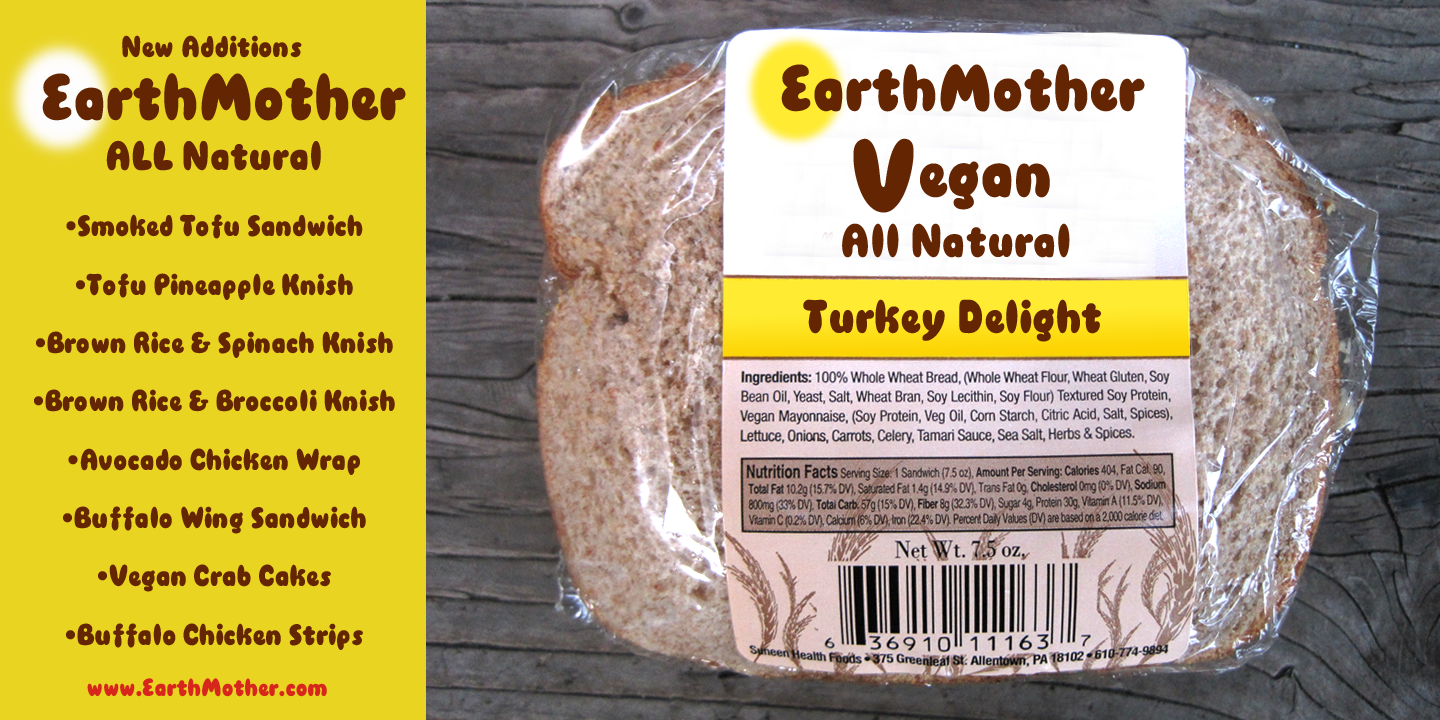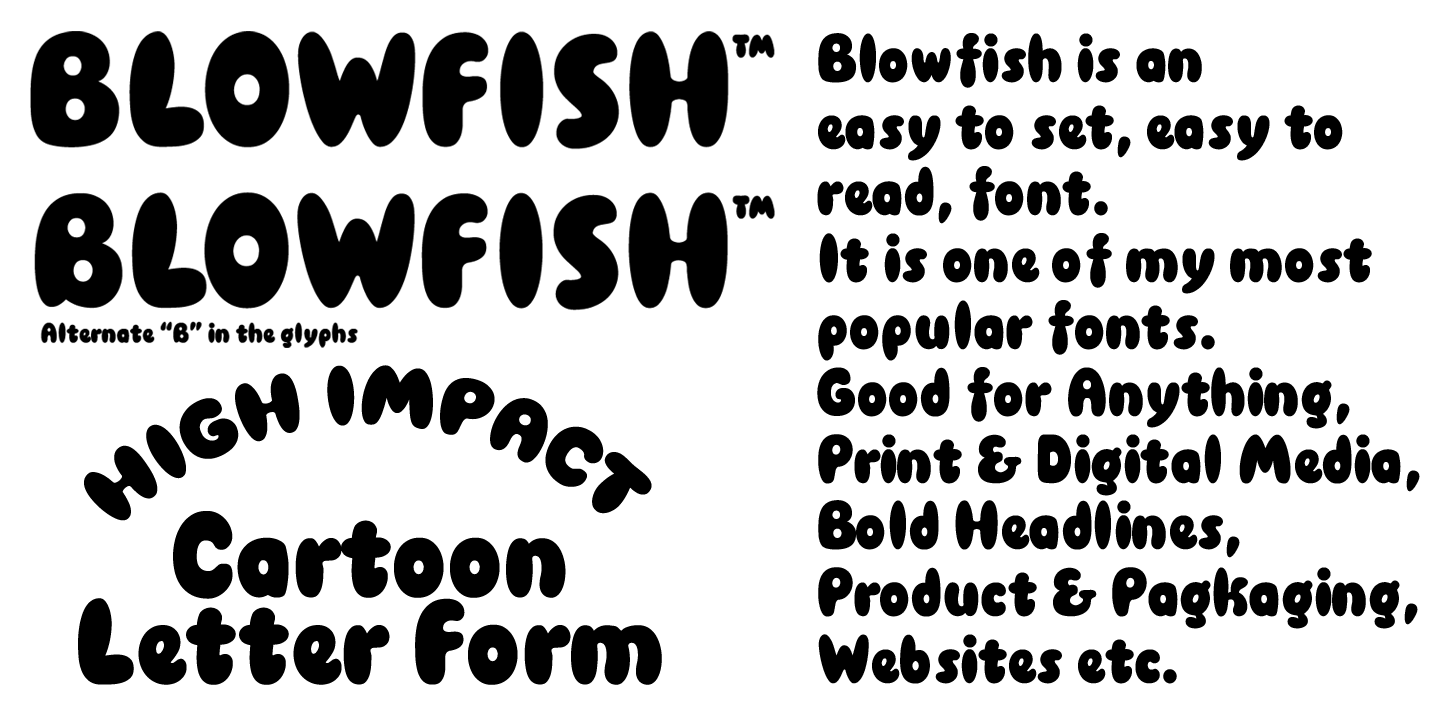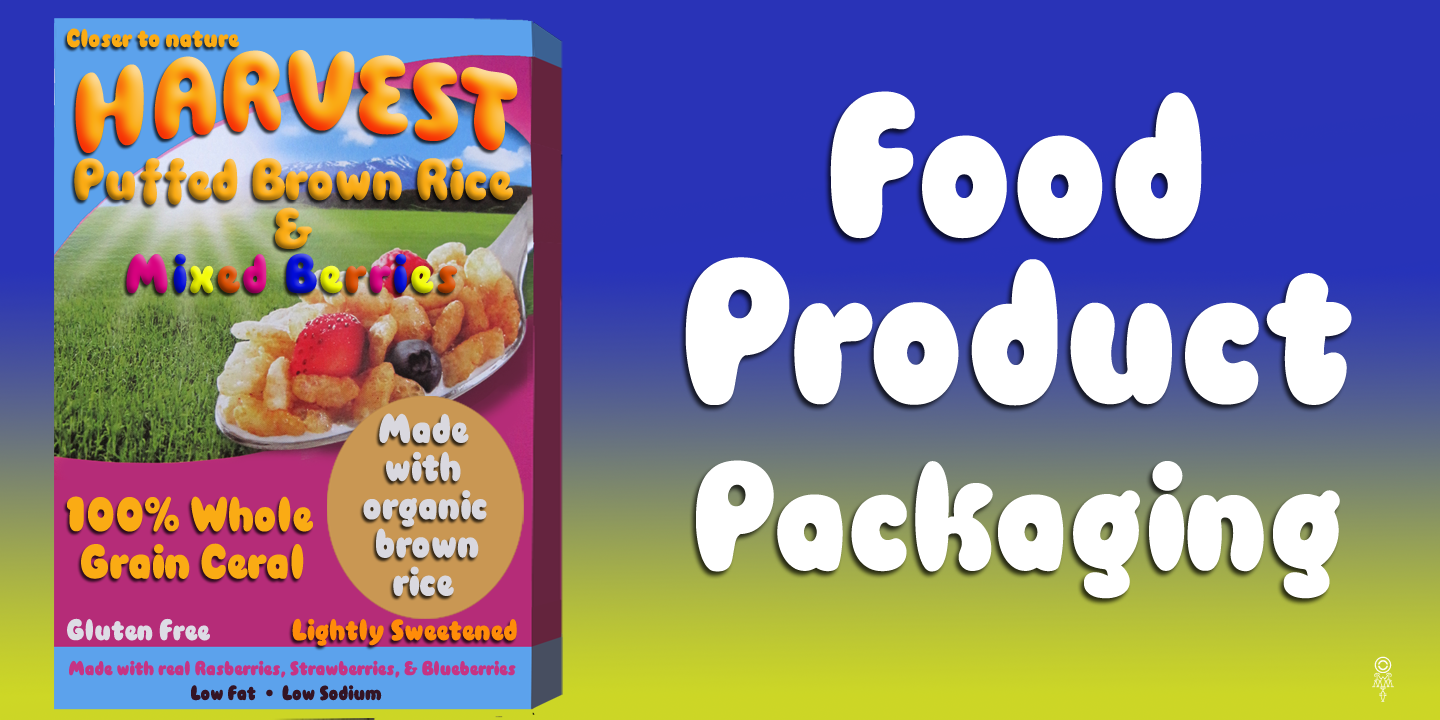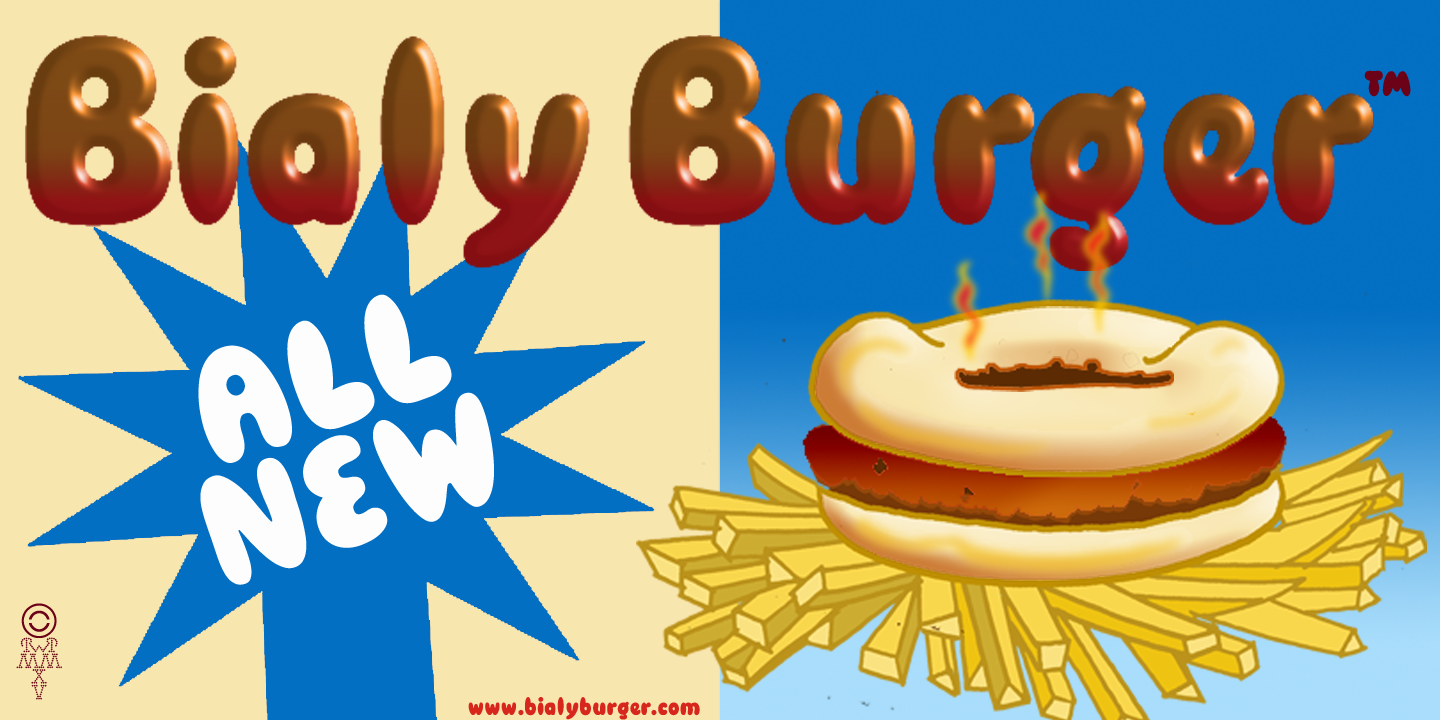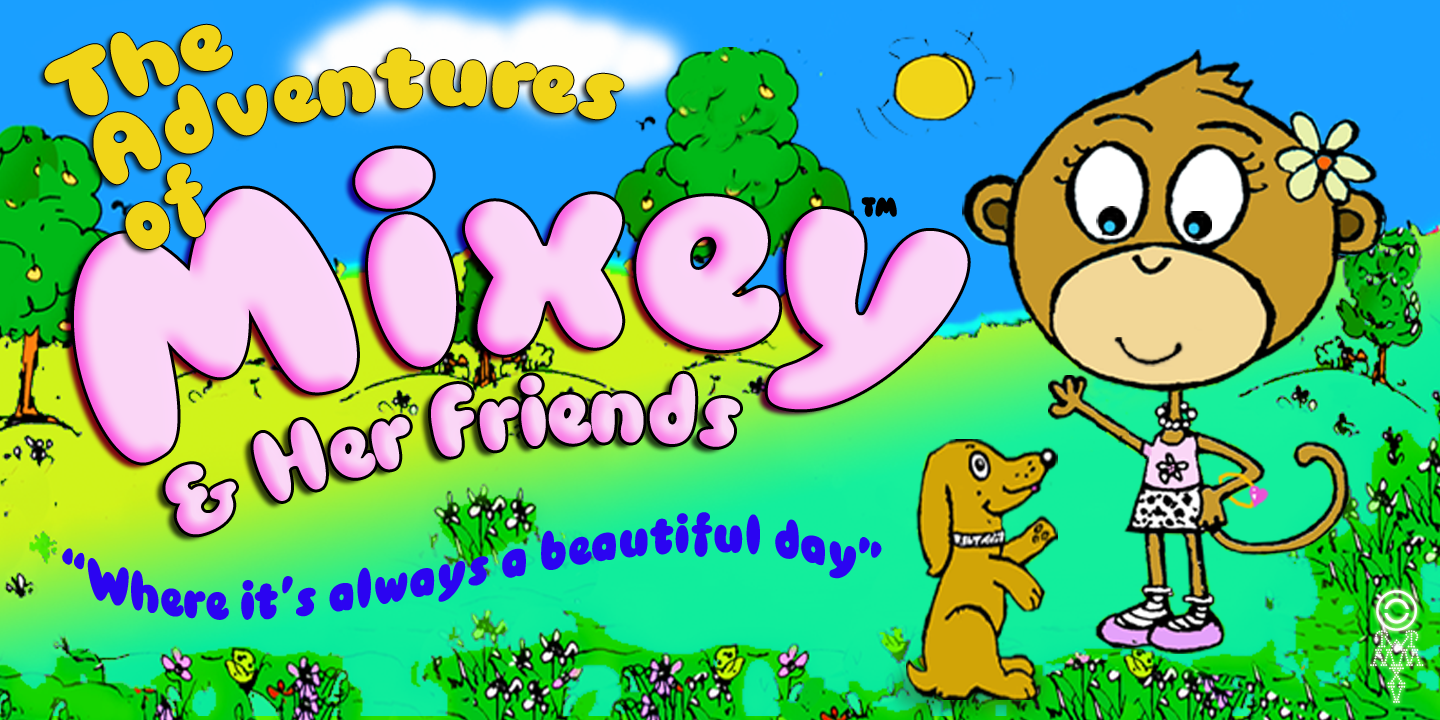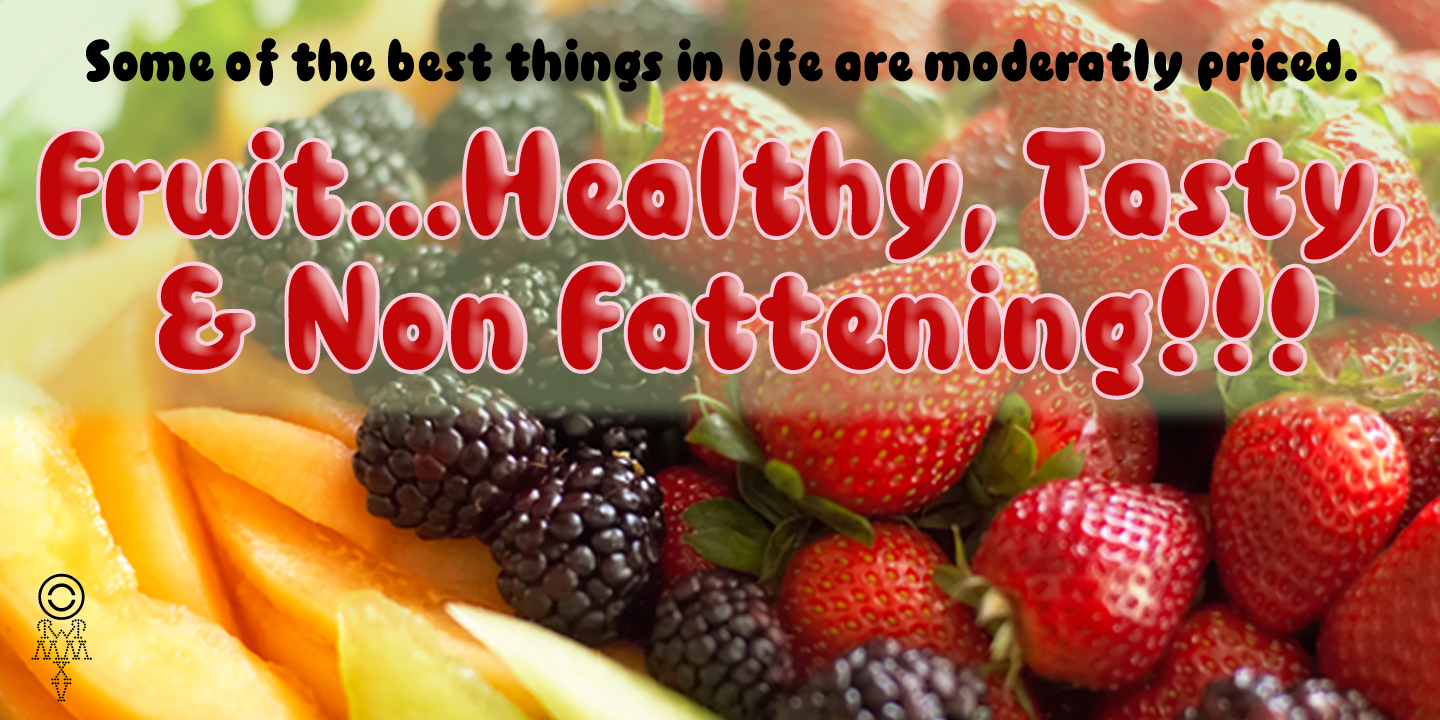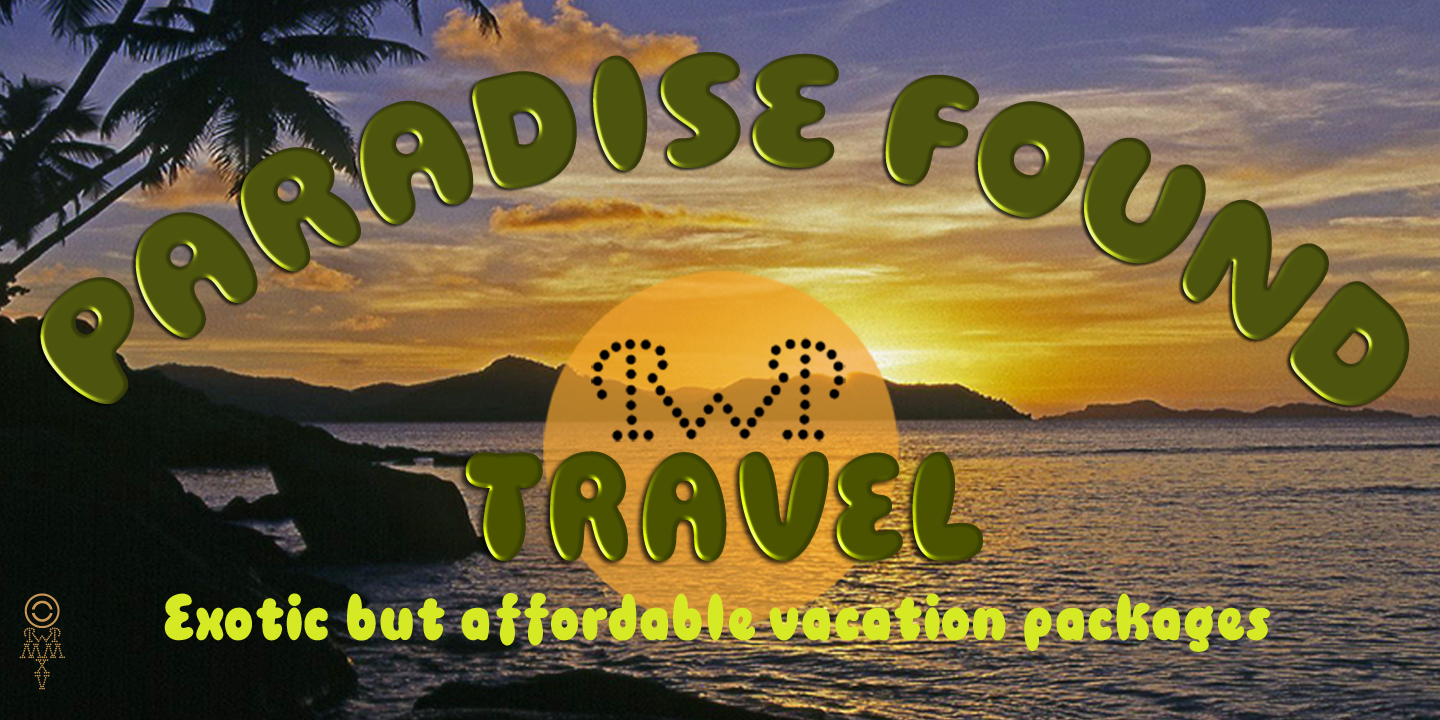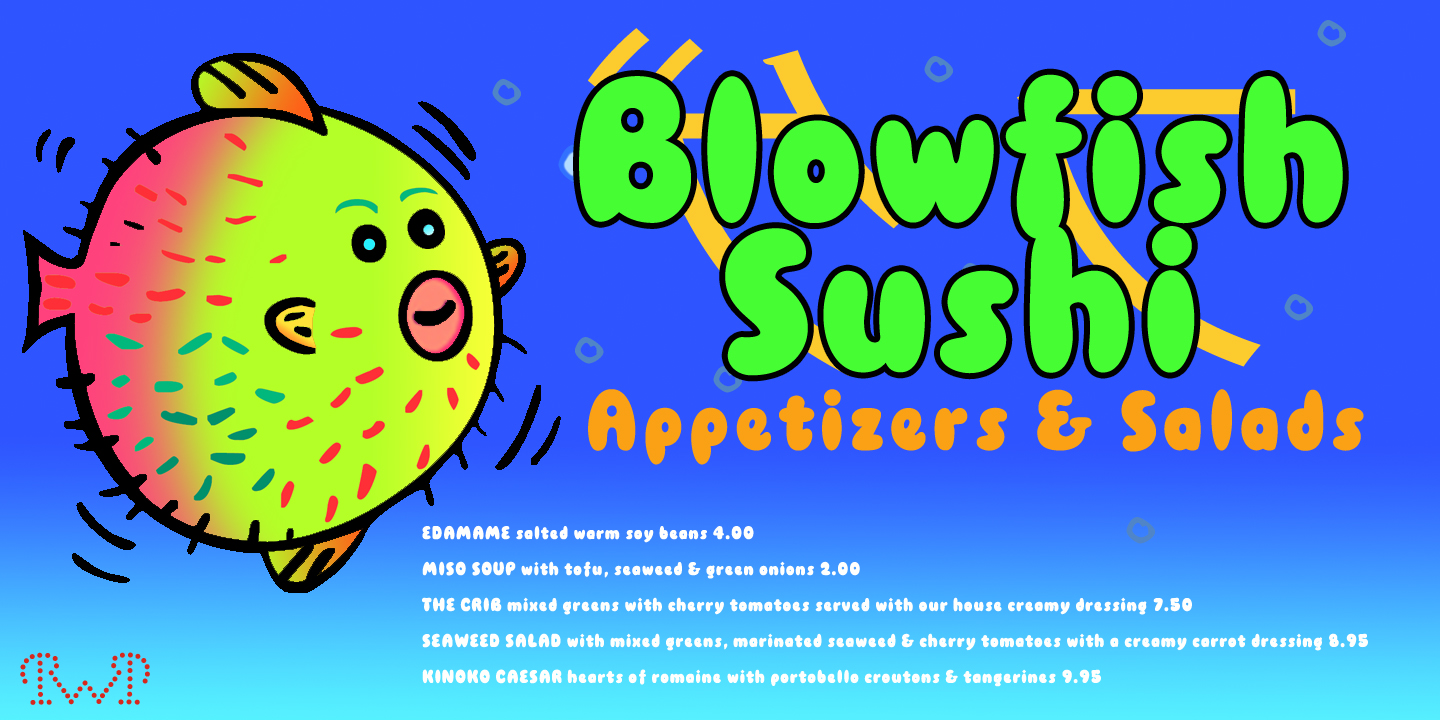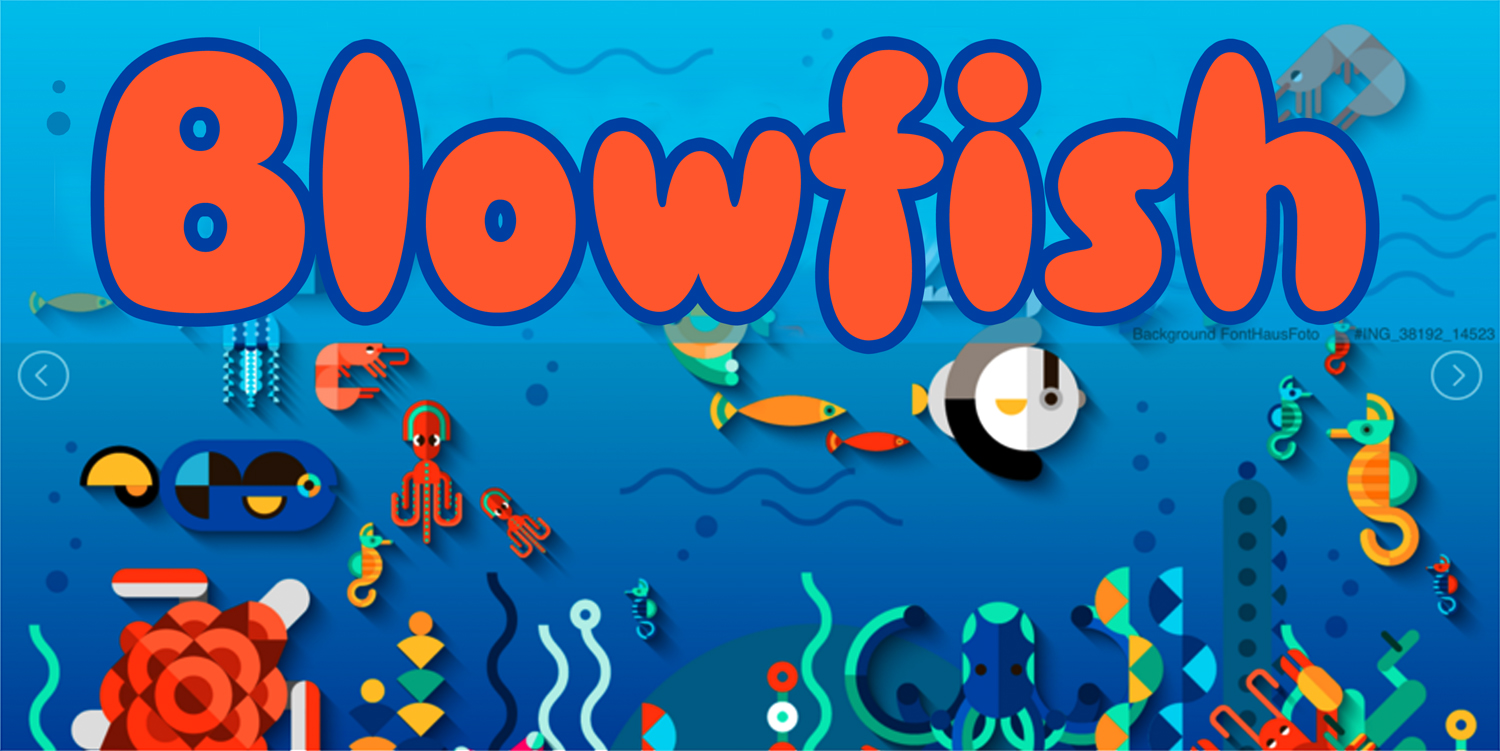
From Robert W. Petrick
About Robert W. Petrick
Designing for over 30 years, Robert Petrick works from his studio in New York's East Village. His love of letterforms is the basis of his graphic design. Petrick creates logos, fonts, illustrations and Ambigrams. His first important Ambigram "Angel" was created and published in 1976. Petrick's most famous font, Blowfish™ is the branding font used on the Sour Patch™ candy packaging.